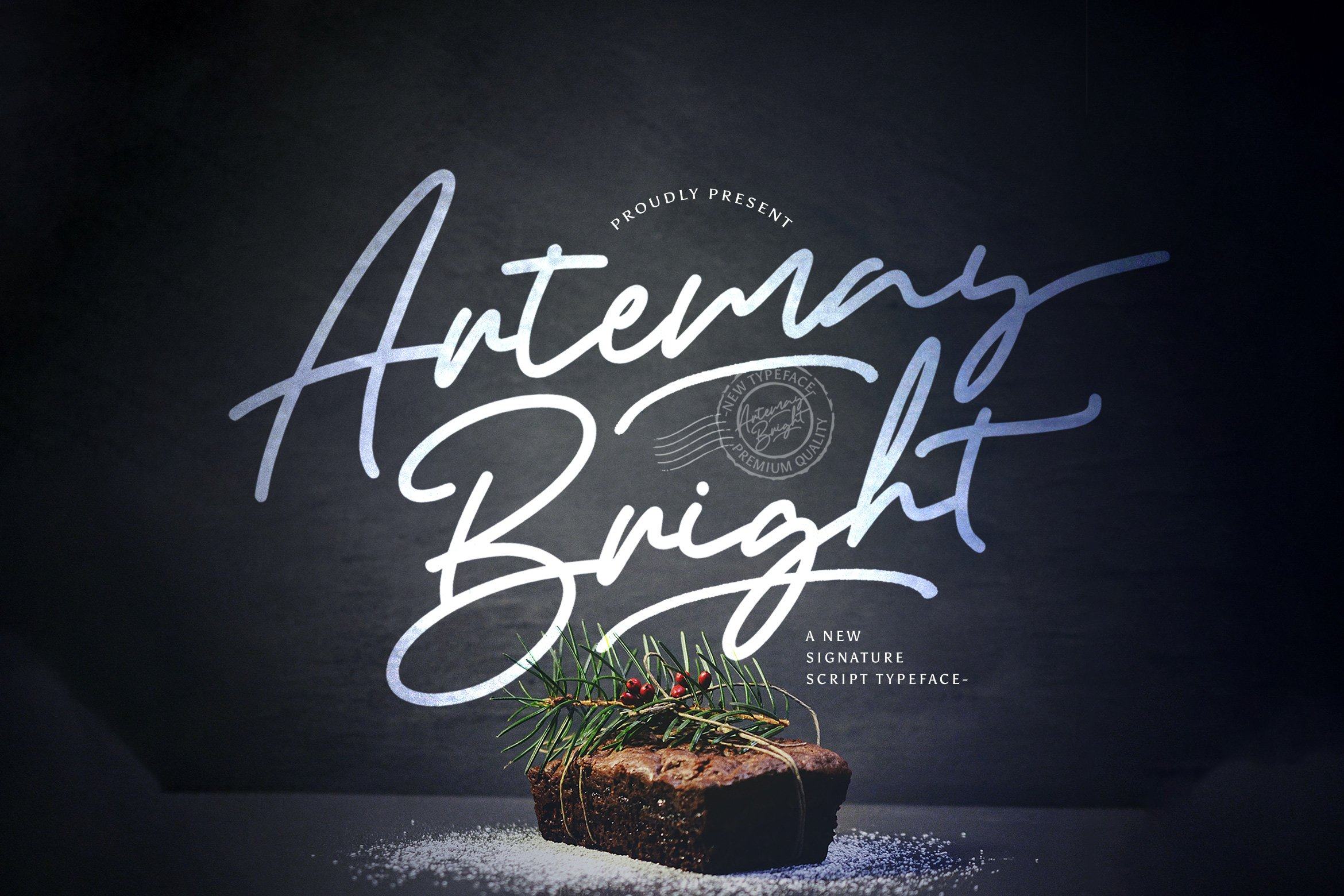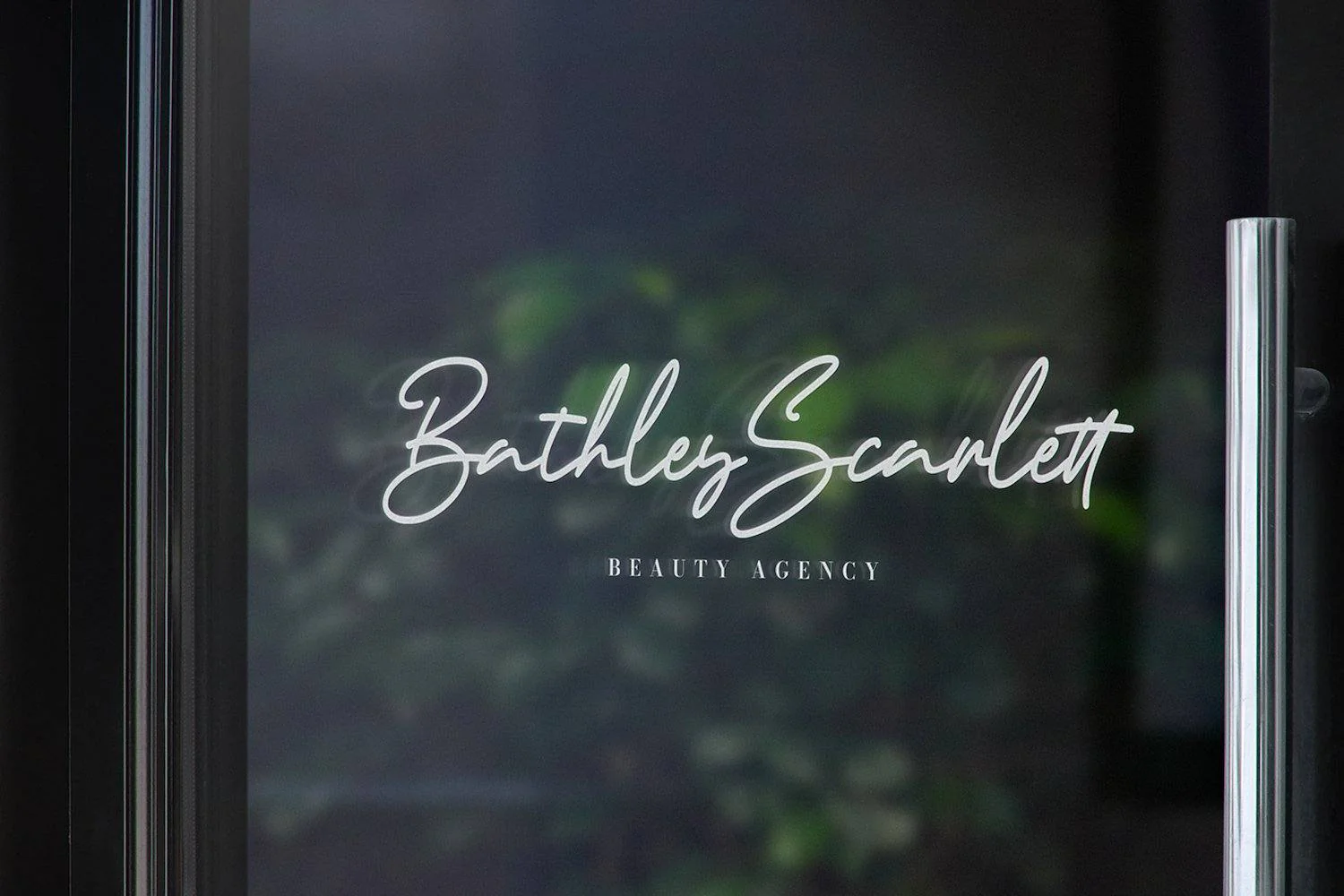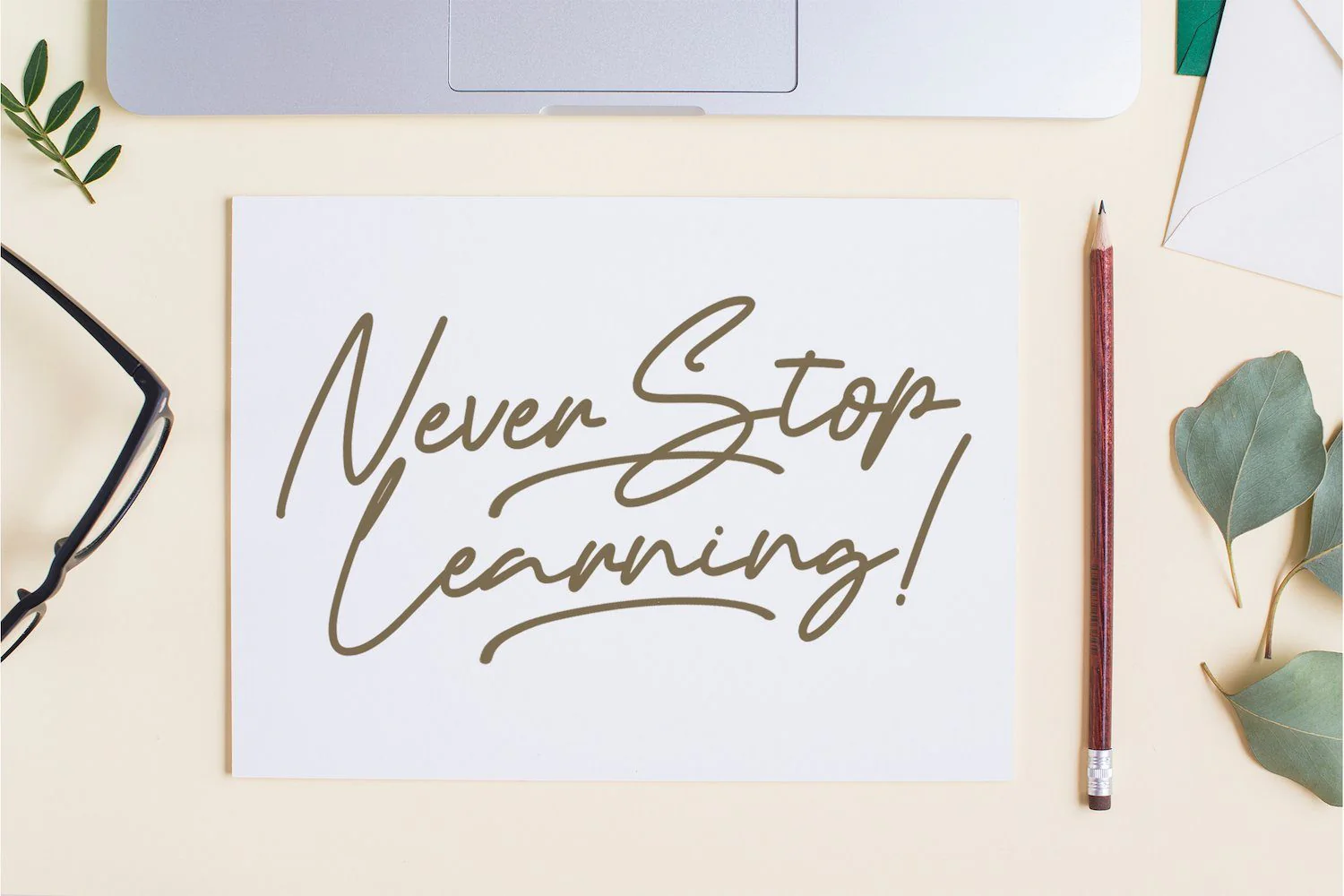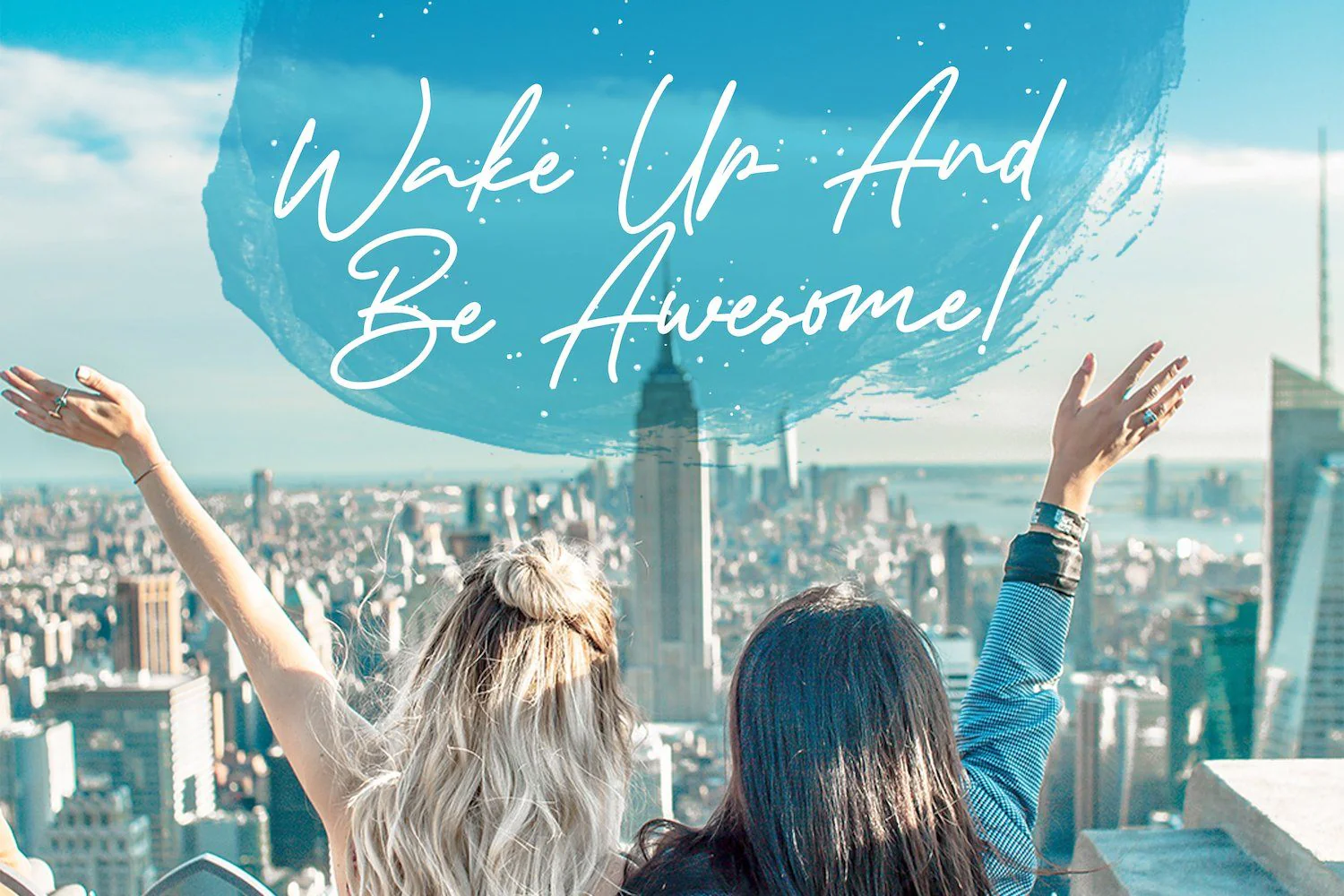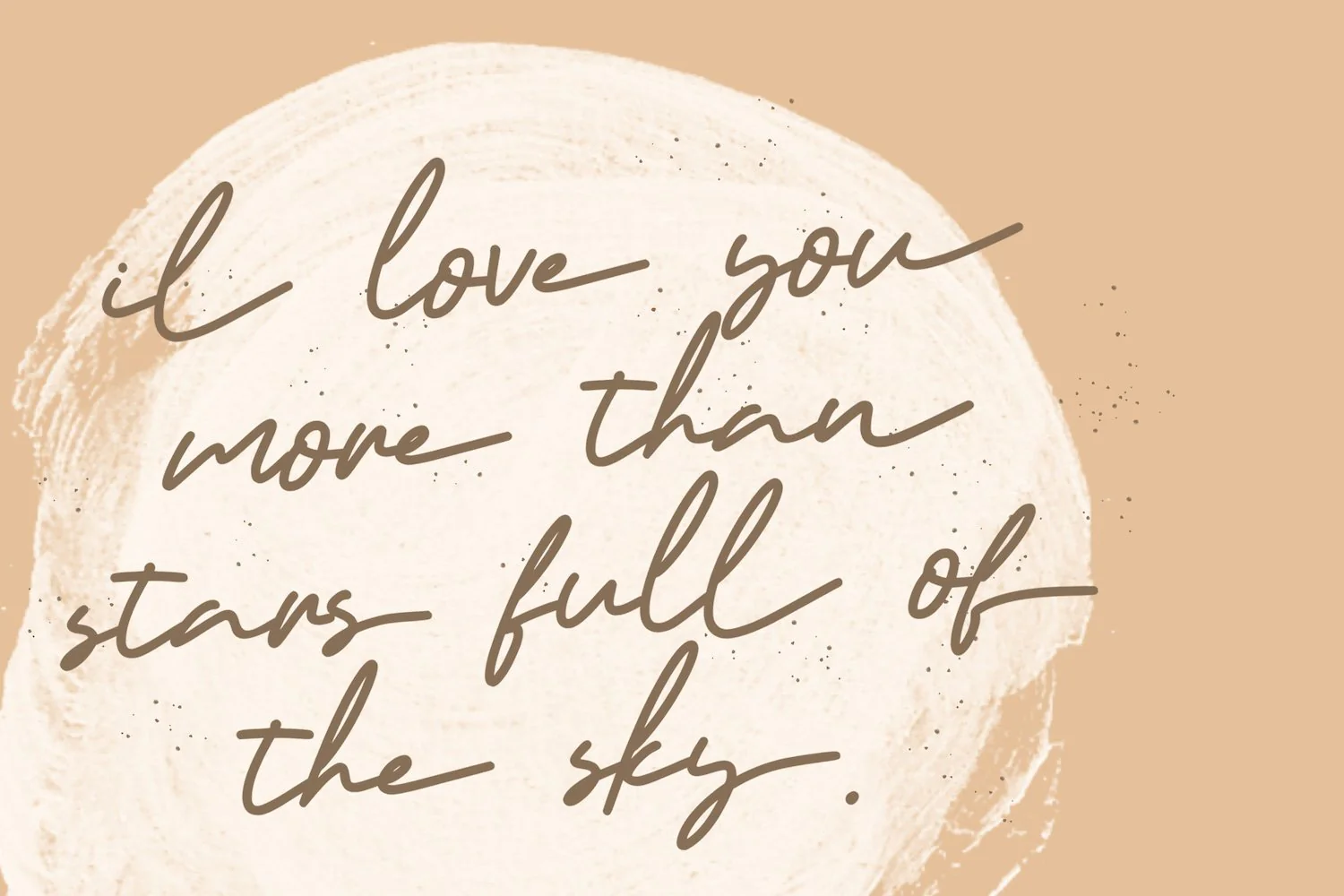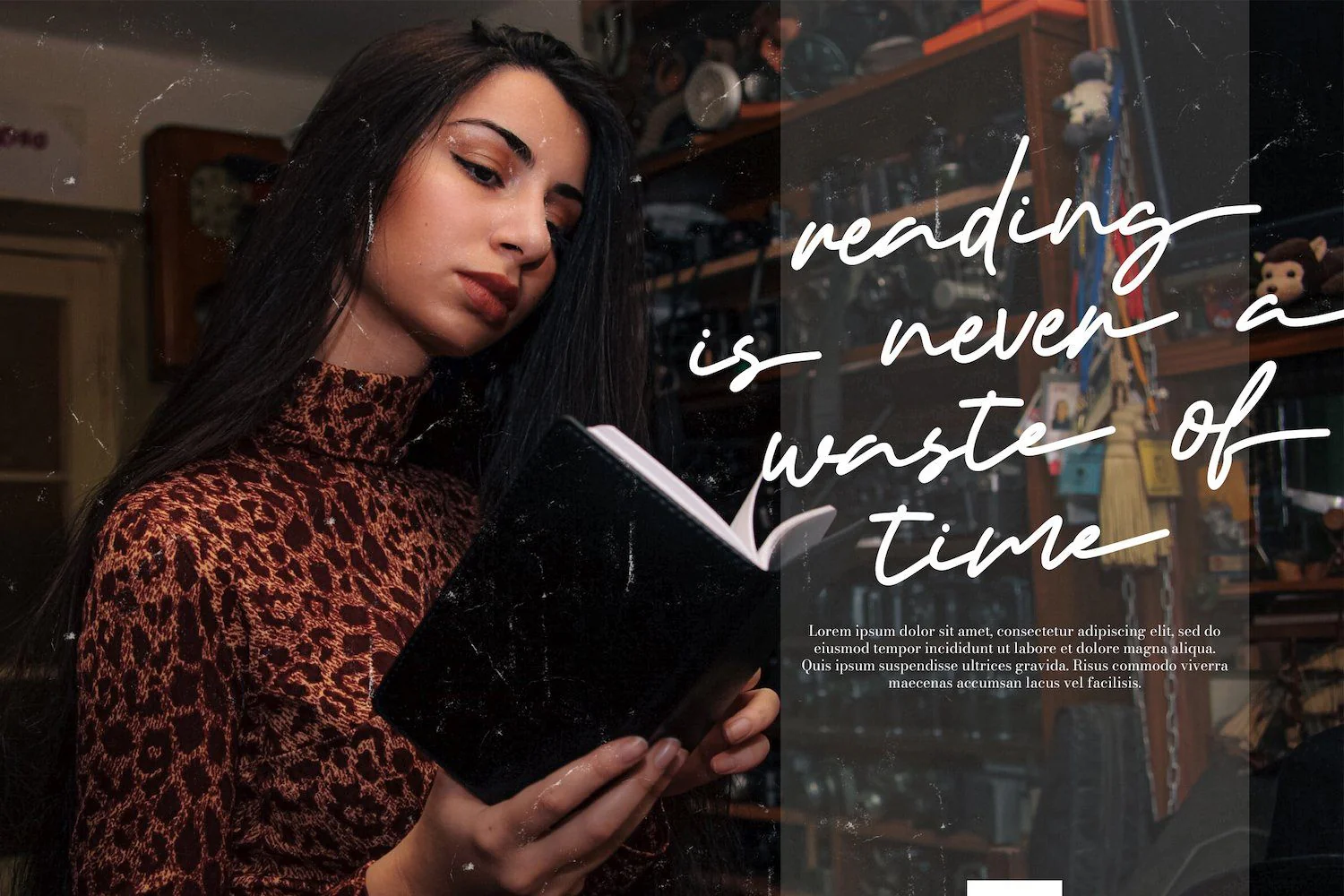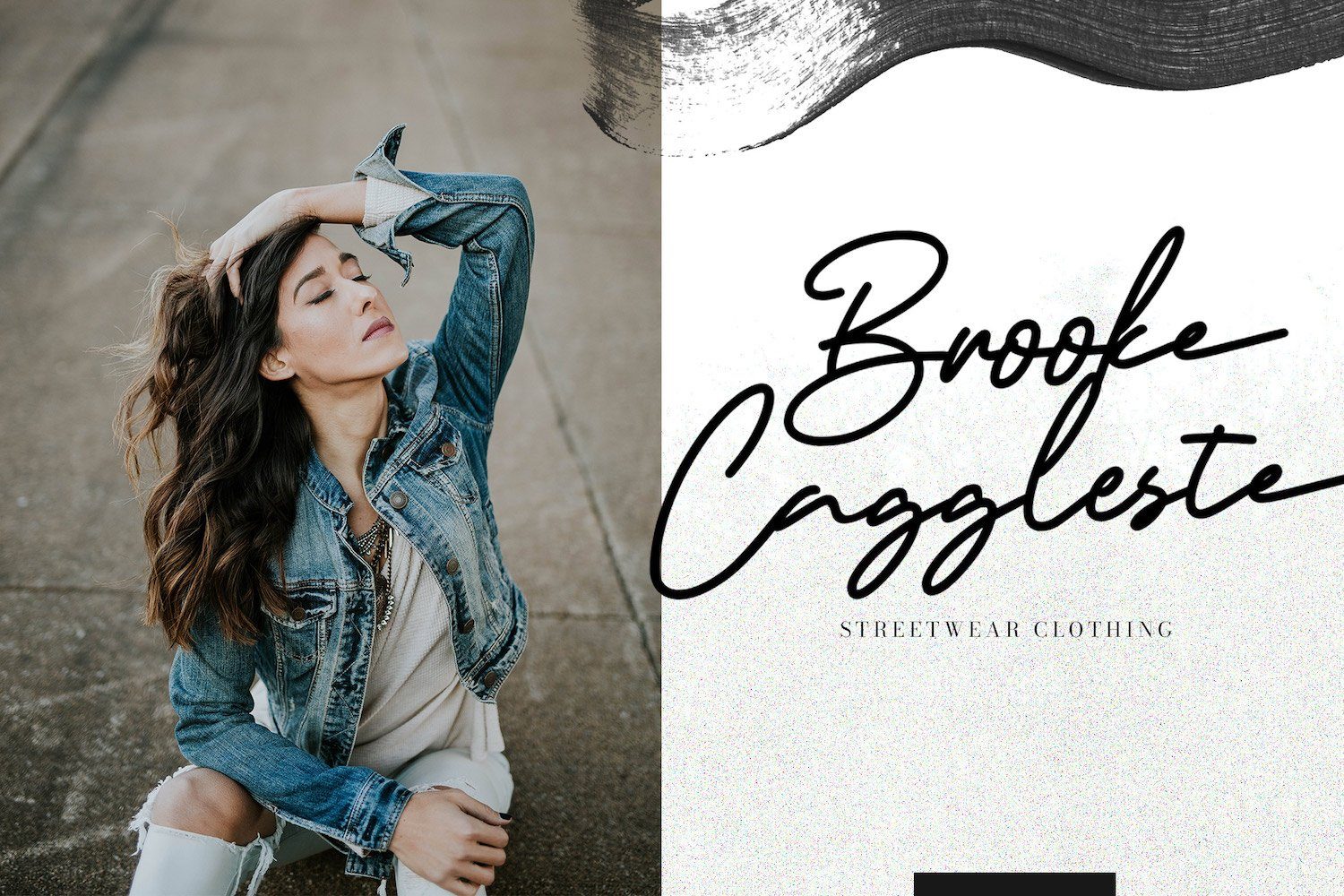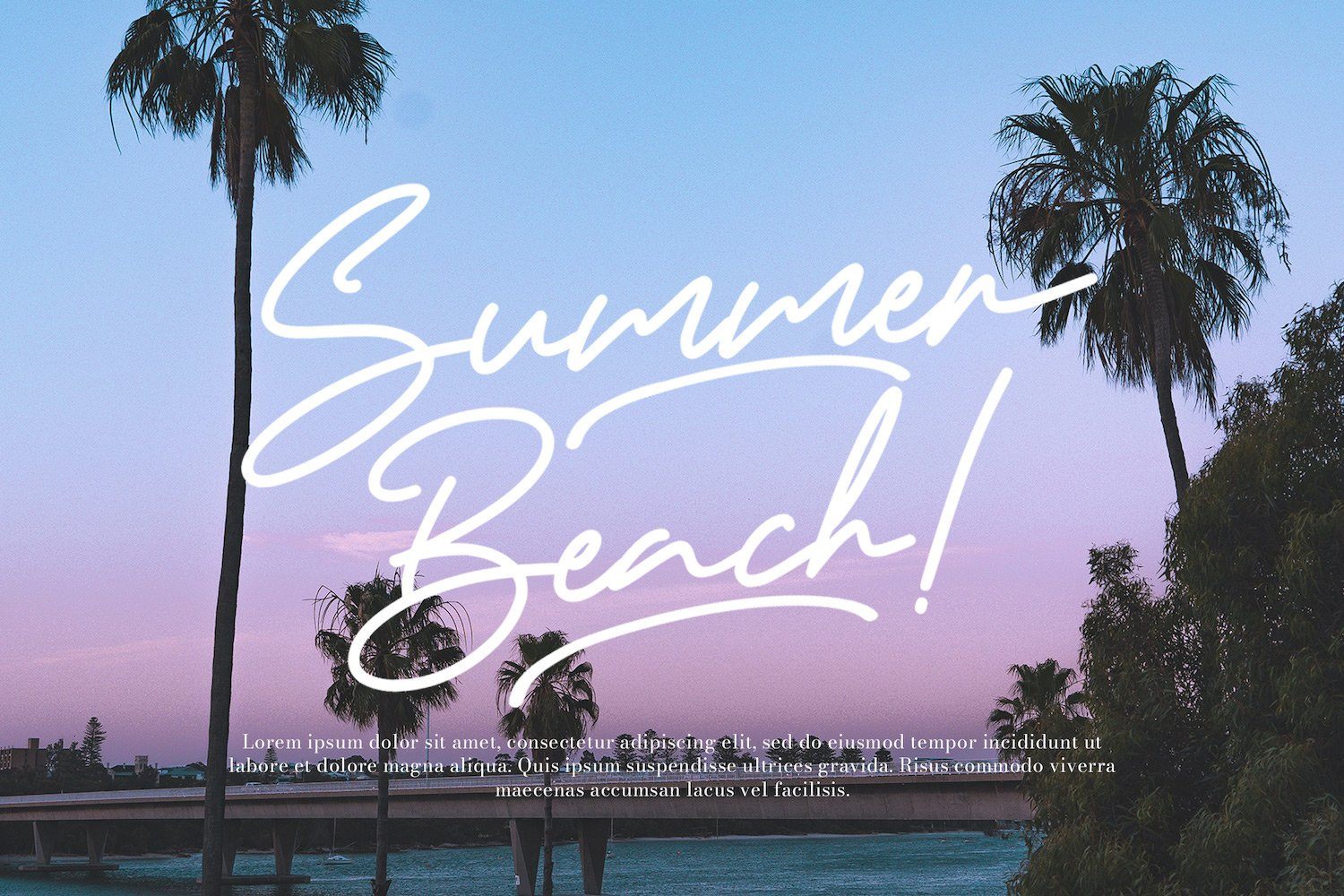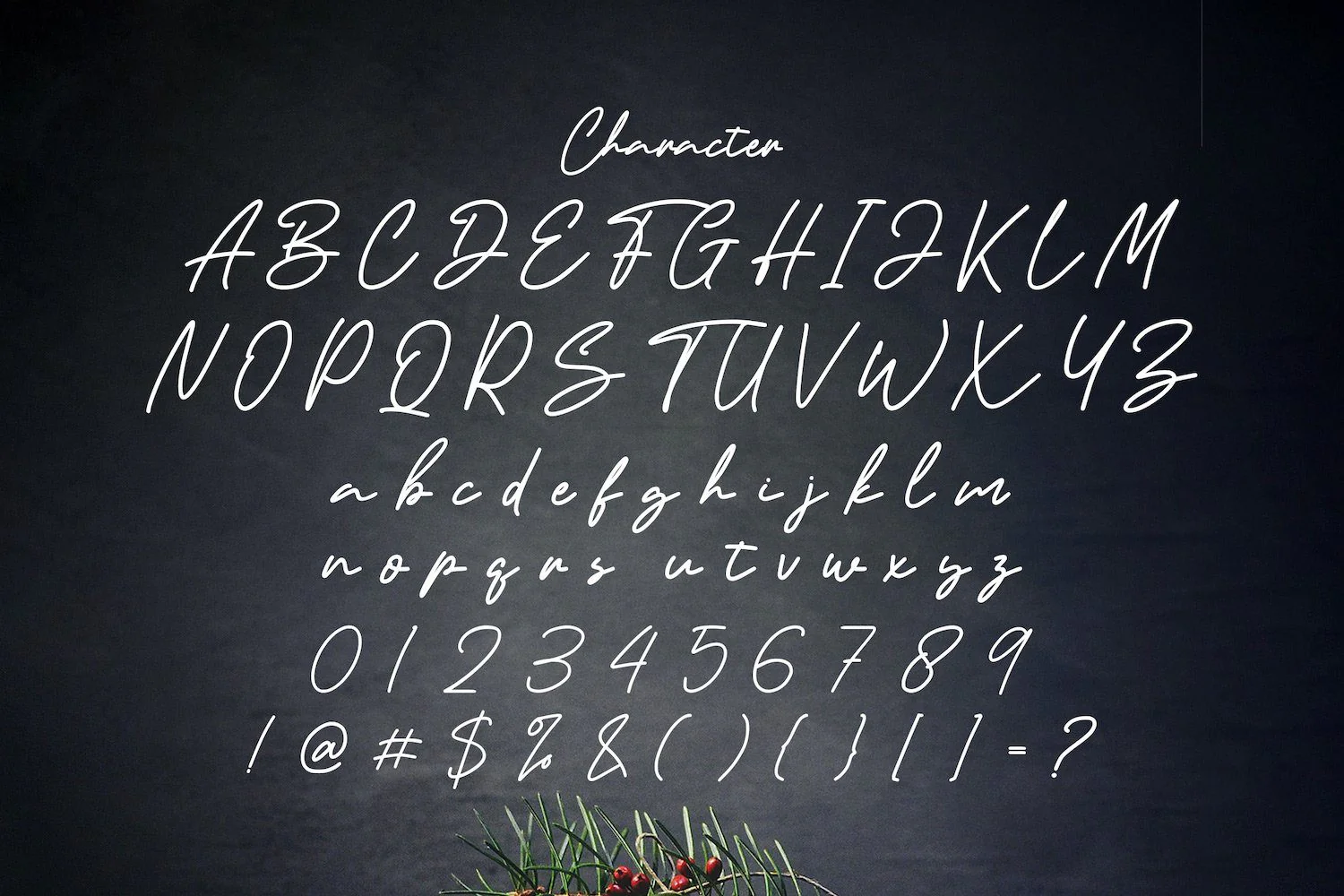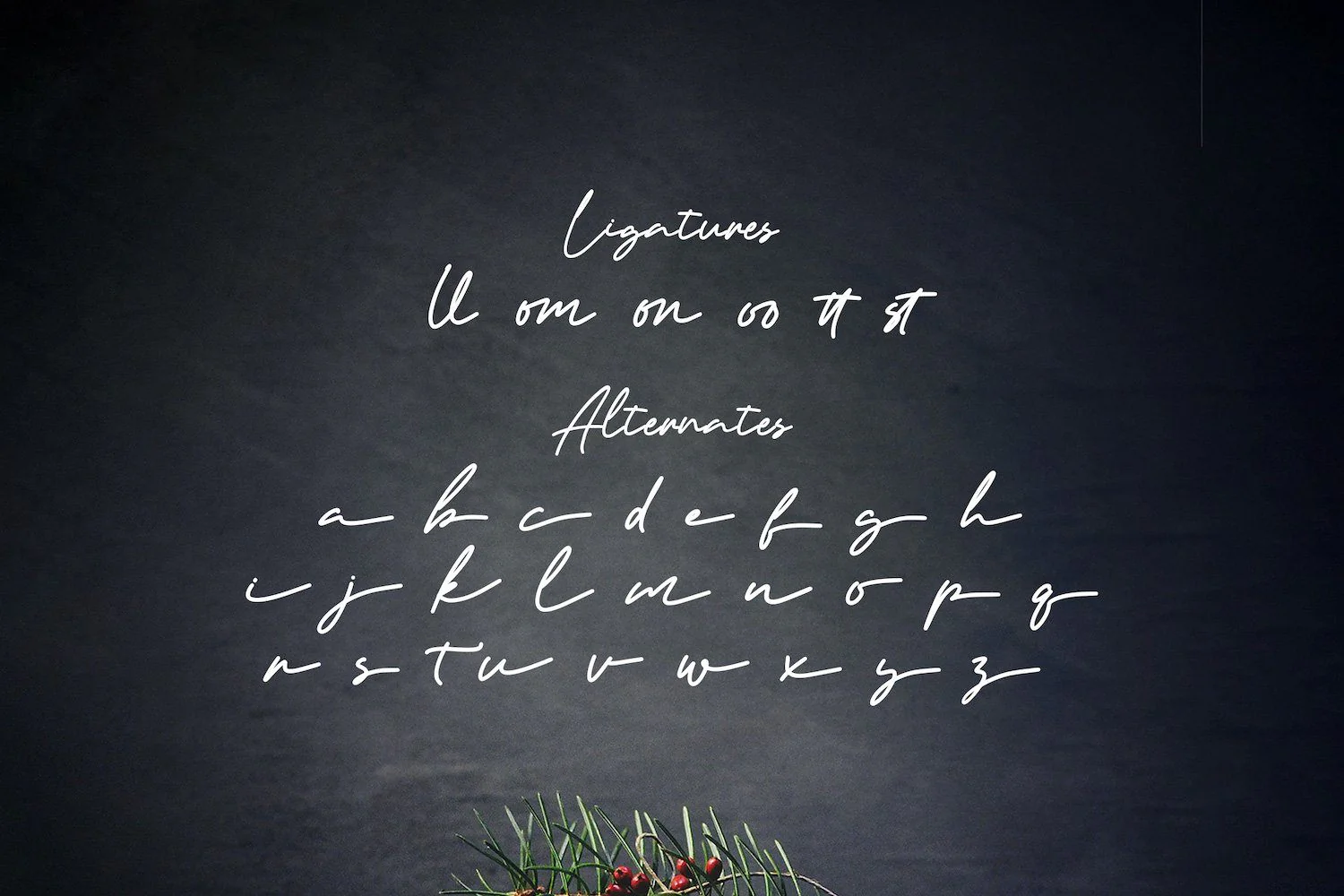
Artemay Bright - Signature Script Font
Introducing Artemay Bright - Signature Script Font
Artemay Bright is a delicate and beautifully designed handwritten font. Its elegant and well rounded letters make this font a masterpiece. Fall in love with its distinct style and use it to create spectacular designs!
Introducing Artemay Bright - Signature Script Font
Artemay Bright is a delicate and beautifully designed handwritten font. Its elegant and well rounded letters make this font a masterpiece. Fall in love with its distinct style and use it to create spectacular designs!